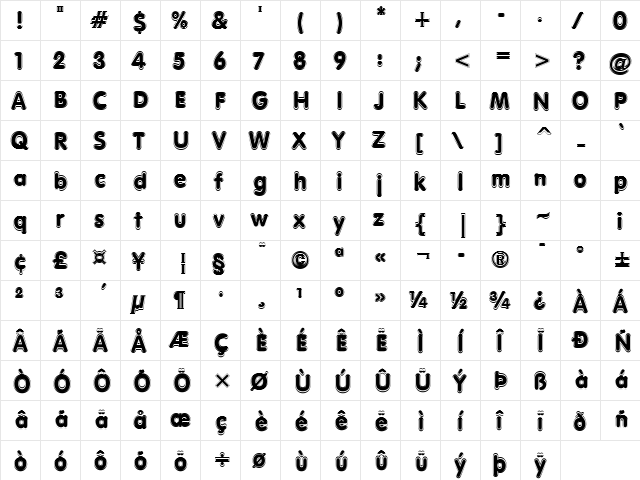
Ragey Regular
Design Context for Ragey Typeface
Ragey offers clean, dependable letterforms without strong stylistic allegiance, making it a practical choice for designers who need flexibility.